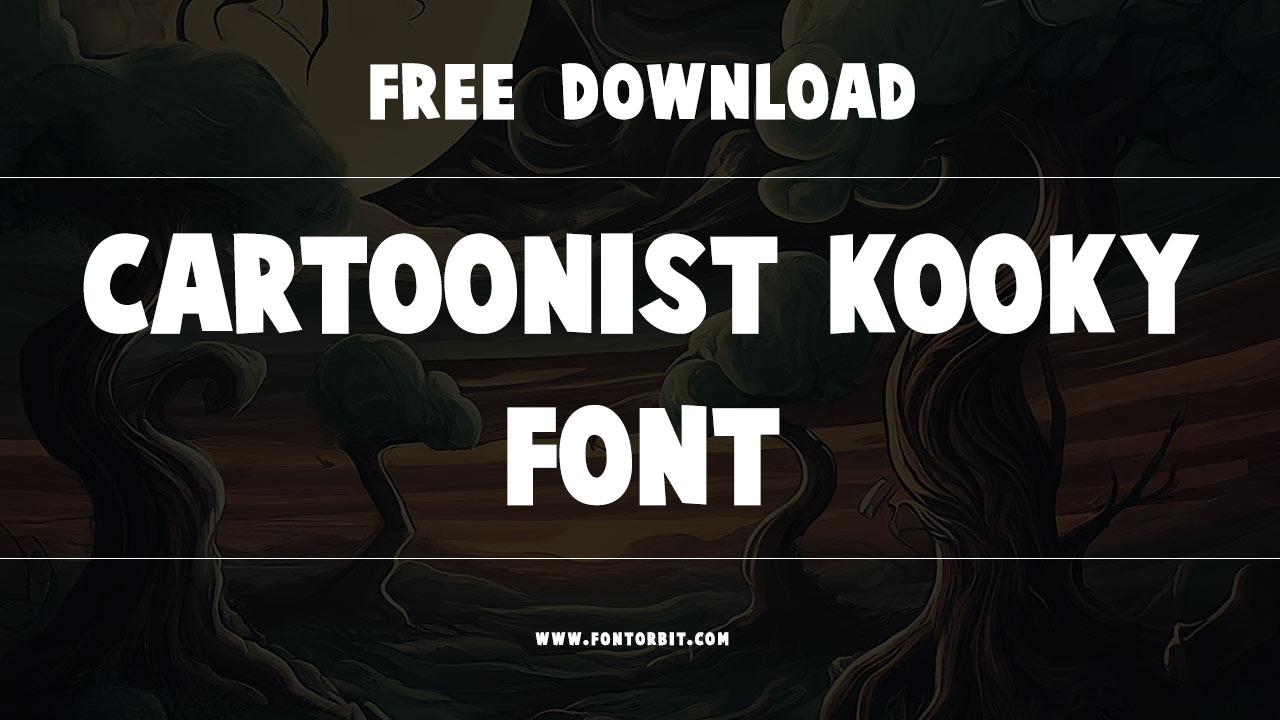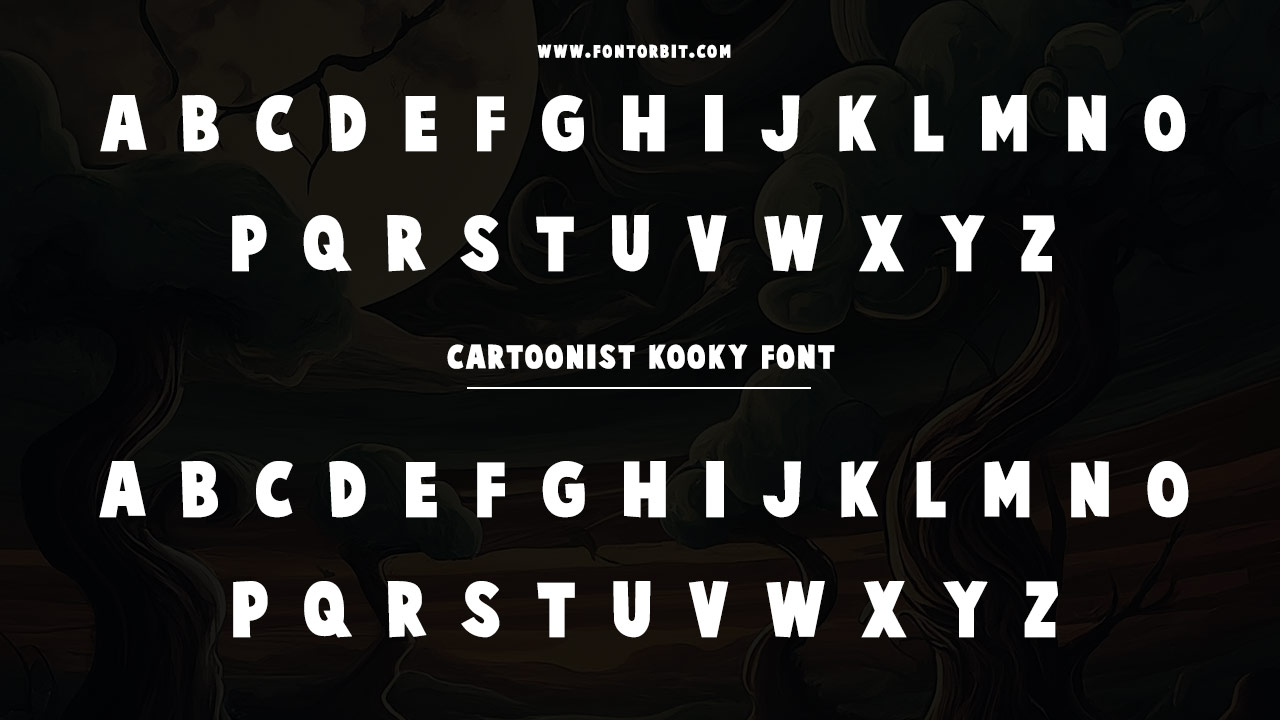
The Cartoonist Kooky Font is a playful and decorative typeface created by George Edward Purdy under Purdy Design. This font is recognized for its whimsical and fun design, so it has become a popular choice for creative projects.
Its quirky characters and elegant texture make it a go-to option for cartoon-themed, decorative, and modern typography. Whether you’re designing for printed materials, websites, or digital graphics, Cartoonist Kooky adds a unique charm to your content.
Type Of The Cartoonist Kooky Font (Font Family)
- Cartoonist Kooky Bold
- Cartoonist Kooky Italic
- Cartoonist Kooky Wide Italic
The Cartoonist Kooky Font is a decorative and playful typeface that brings a whimsical touch to your projects. Whether you’re working on posters, logos, or websites, its charm and versatility make it a fantastic choice. With its support for a wide range of design applications and elegant texture, Cartoonist Kooky remains a favorite among designers.
It works best in playful and decorative designs like posters, logos, and digital media. Pair it with script or handwriting fonts for added flair.
The font embodies a whimsical and elegant style, with characters designed to stand out in cartoonish and decorative themes.